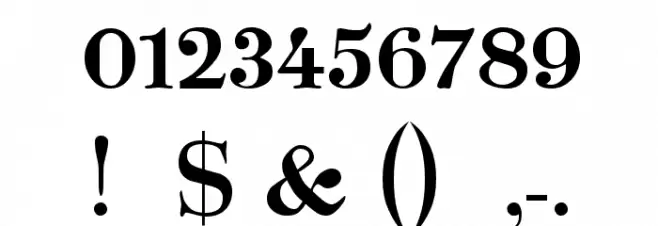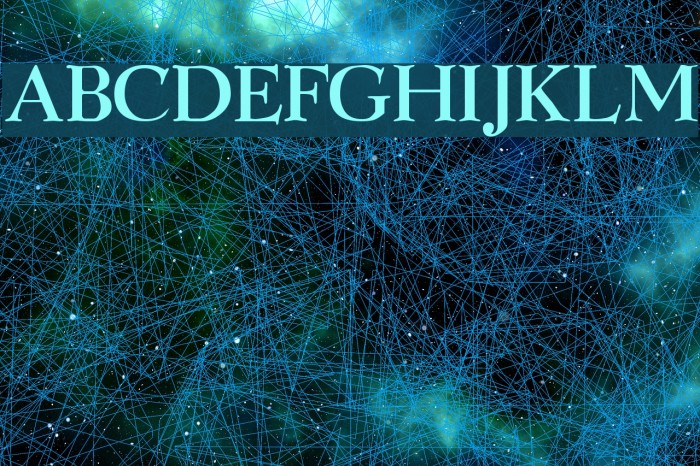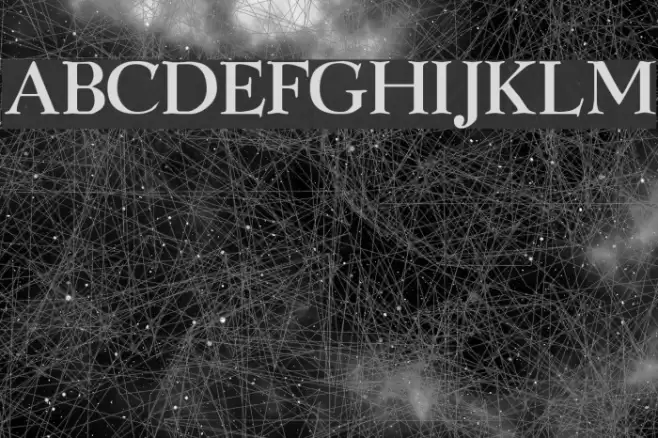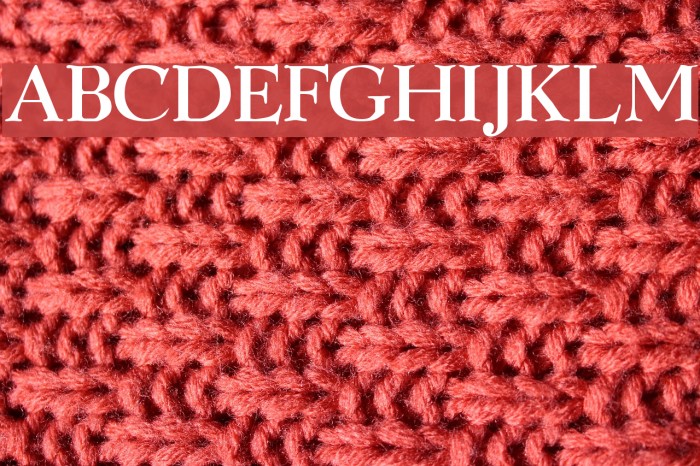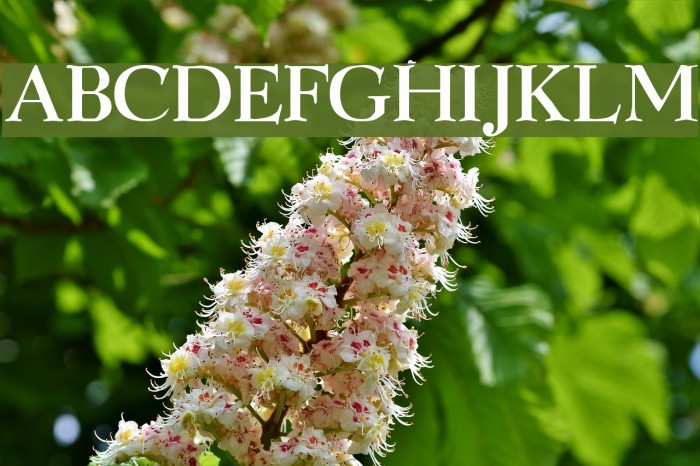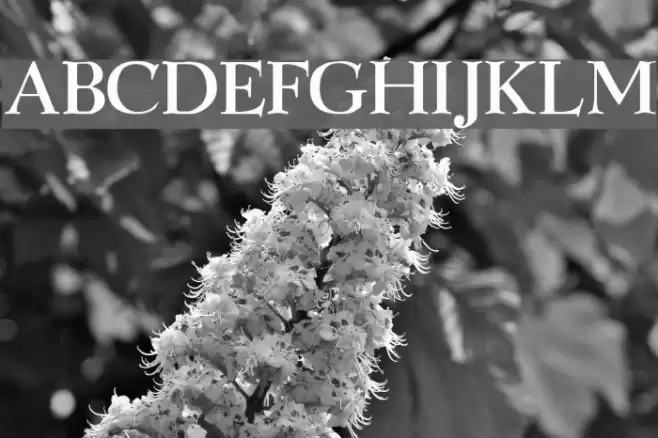
Graphic Regular Font
Graphic Regular Description
This font features a classic serif style with elegant, flowing lines and a sophisticated appearance. The uppercase letters are bold and commanding, while the lowercase letters maintain a refined and balanced look. The numerals are clear and distinct, ensuring readability. Special characters are designed with a touch of flair, adding to the overall aesthetic. The font's strokes vary in thickness, providing a medium contrast that enhances its legibility and visual appeal. It is well-suited for projects that require a touch of elegance and tradition.
| Overall Style | Classic |
| Use Case | Headlines, Body text, Logos |
| Proposed Projects | Ideal for book covers, formal invitations, branding, and editorial design. |